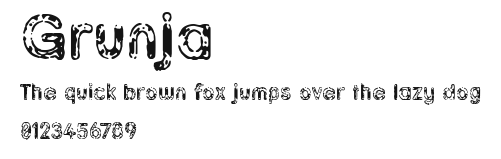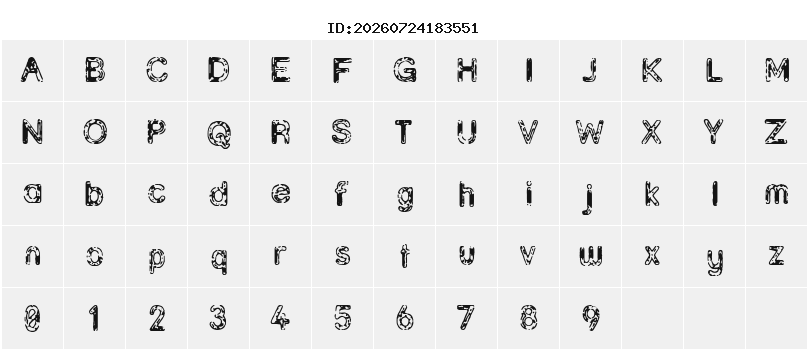
Grunja Preview
• Font Name: Grunja
• Designer: Graham Meade & Apostrophe
About Grunja.ttf
Grunja.ttf is a modern, elegant sans-serif font designed for ultimate readability and visual harmony. Perfect for branding, headlines, web design, and print materials.